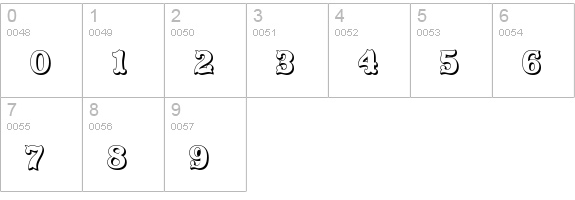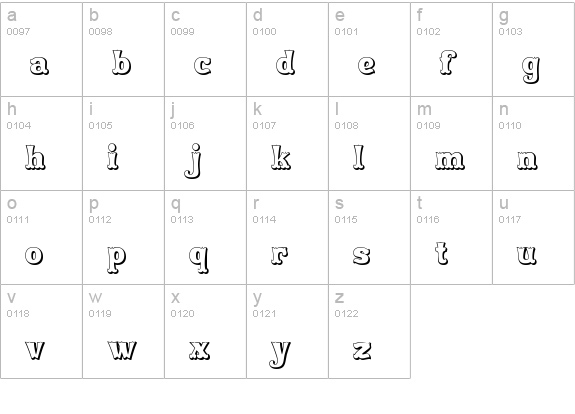
The Rodeo Clown Open font is a playful and whimsical typeface that captures the spirit of the wild west with its bold, rounded letterforms. Perfect for adding a touch of fun and excitement to your design projects, this free font is sure to stand out and make a statement. Whether you're creating posters, invitations, or branding materials, Rodeo Clown Open is versatile and eye-catching. Best of all, this font is freely available to download at FontsMarket.com, making it easy to add a touch of western flair to your next project. Let your creativity run wild with Rodeo Clown Open!